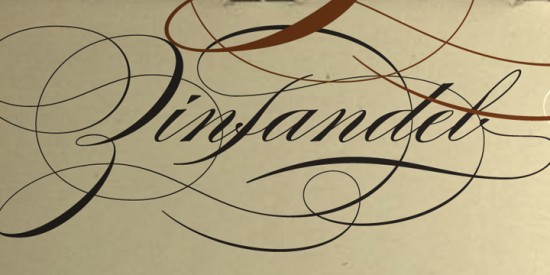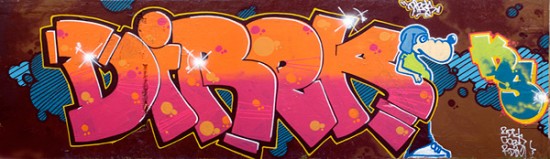
Page 1 of 2. You can create custom text in Graffiti Cartoon Cursive Stylish Tattoo and Tribal style text plus many more fun themes listed below.
Choose from Graffiti letter themed fonts such as Amsterdam font Graffonti font Nosegrind font Searfont font Street Soul font and Street Writers font.
Calligraphy graffiti font generator. Make your Free Graffiti style text letters with our generator below. You can also choose custom font and. Font Meme is a fonts typography resource.
Customize your Graffiti letter text with our generator below and download or print your custom Graffiti letters instantly. If you dont want the hassle of downloading and installing fonts but just want to use old english fonts fonts online you should check our. Our most daring and original sources for street graffiti or a mural.
Customize your Calligraphy letter text with our generator below and download or print your custom Calligraphy letters instantly. Fonts for graffiti murals and drawings. The Text Generator section features simple tools that let you create graphics with fonts of different styles as well as various text effects.
Choose from Calligraphy letter themed fonts such as Aspire font Champignon font Hanfordscript font and Precious font. The Fonts Collection section is the place where you can browse filter custom preview and. Chinese Jpn Arabic Mexican Roman Greek Russian Various.
If you dont want the hassle of downloading and installing fonts but just want to use calligraphy fonts fonts online you should check our text generator tool. Graffiti Font Graffiti is an artistic expression that is usually done on public buildings walls or trains. Use our graffiti generator to make your name look like it was spray-painted in the city.
The following tool will convert your desired text into images using graffiti fonts. Its Free and easy. You can also choose special custom colors for your text and background including font.
Ready to personalize and share in Facebook and Twitter. Tellwtf symbol font changer is a bit more complicated than this generator but its got plenty of different fonts and cool additional features like finding symbols and emoji by drawing. Simply enter your text select your desired color and size and hit GENERATE button.
The Fonts Collection section is the place where you can browse filter custom preview and. As this page shows calligraphy looks expressive and beautiful it is widely used in wedding invitations and event invitations and calligraphy also has a large number of enthusiasts. The Fonts in Use section features posts about fonts used in logos films TV shows video games books and more.
Font Meme is a fonts typography resource. It is the design and execution of lettering with a broad tip instrument brush or other writing instruments. Alternative text font generator Youll probably like an MS Word-like editor version of the online calligraphy font generator - tellwtf font generator.